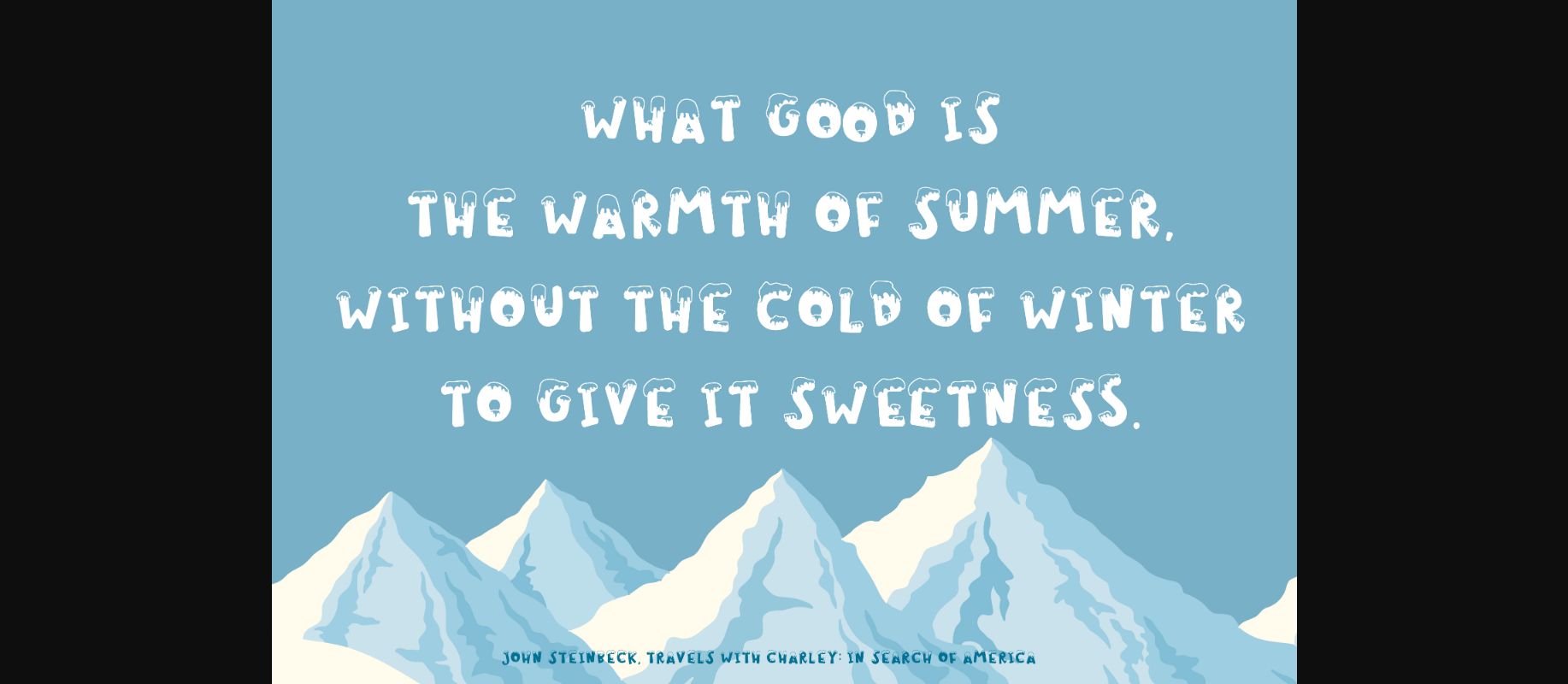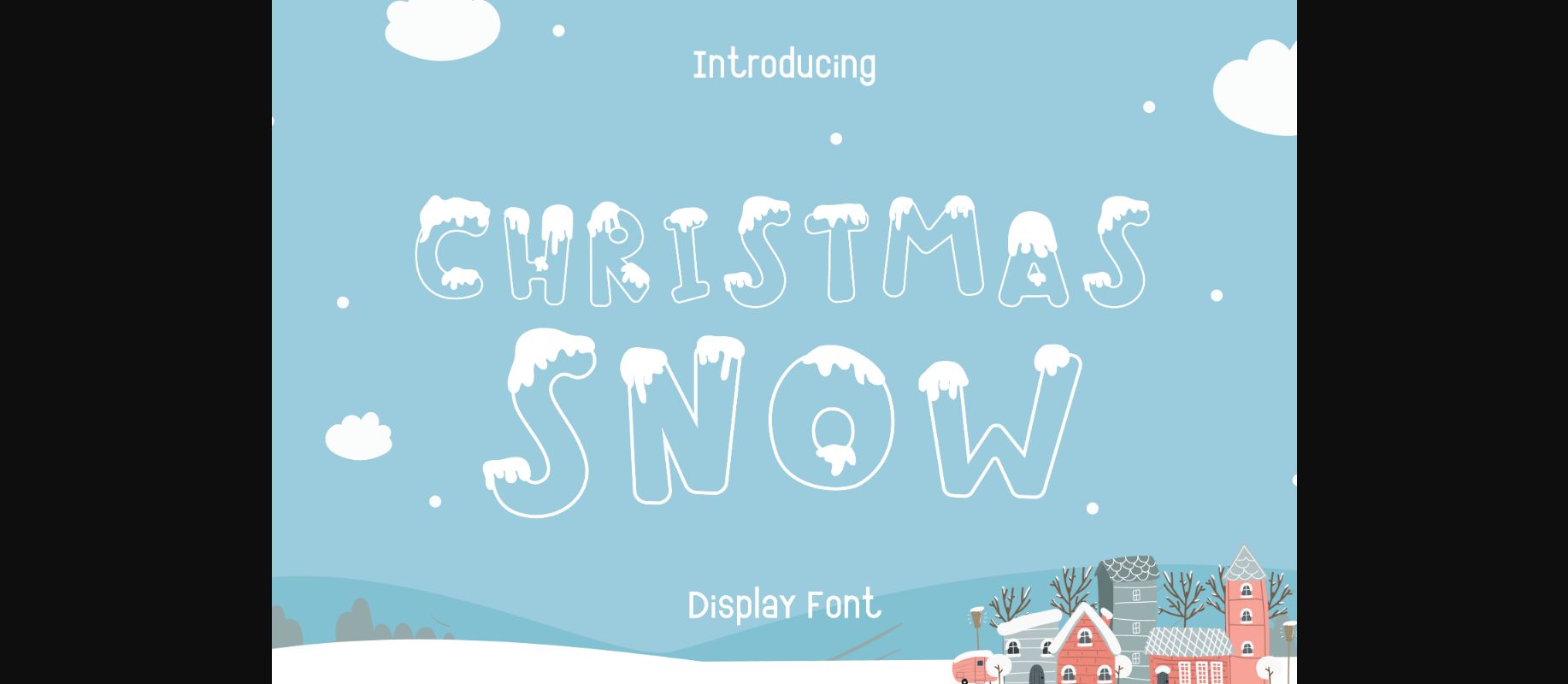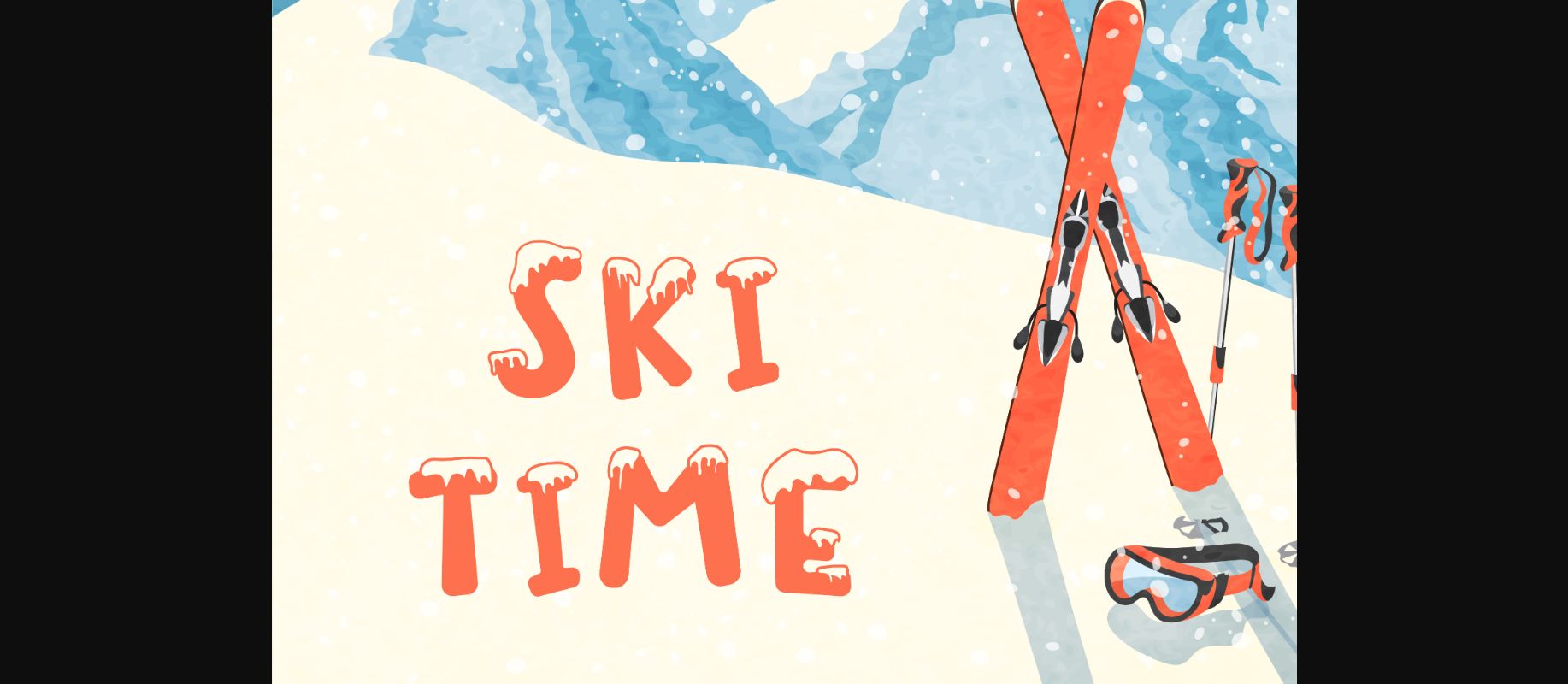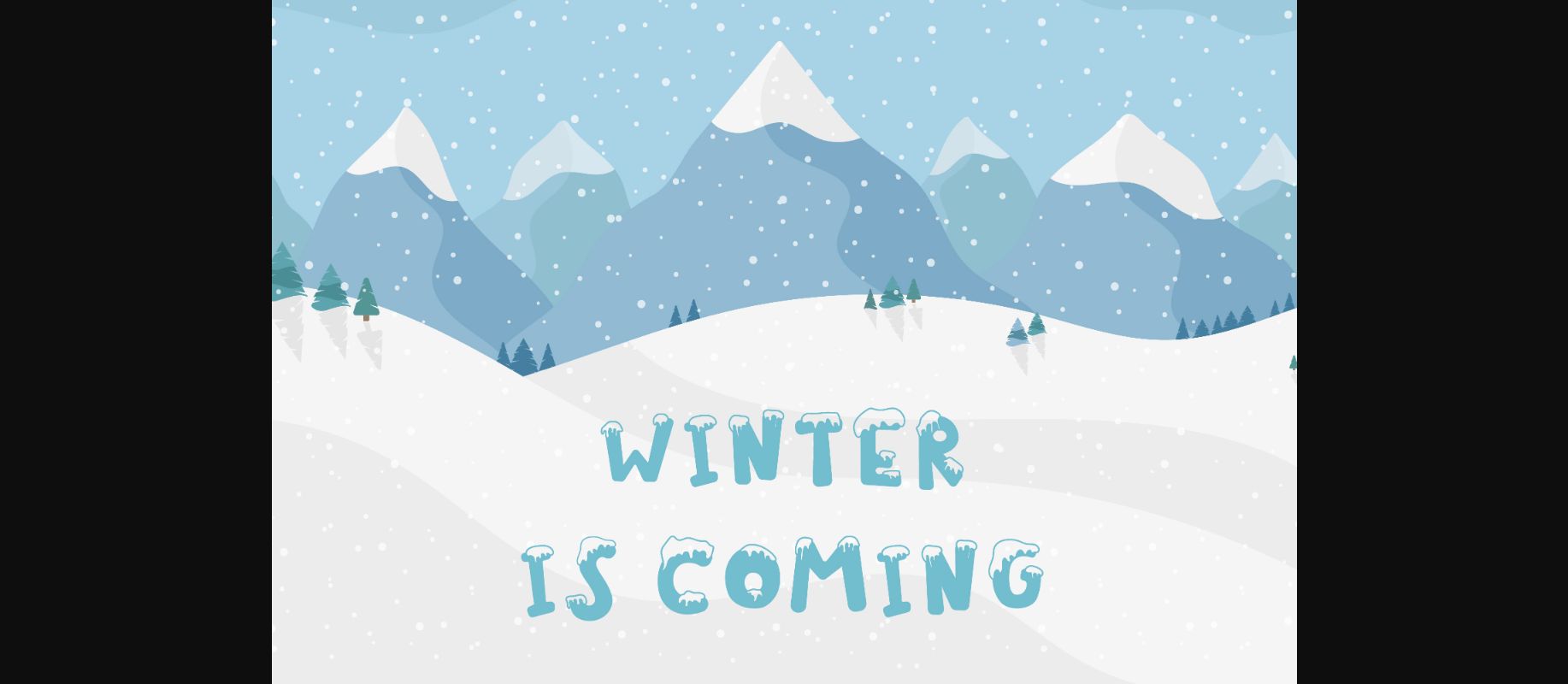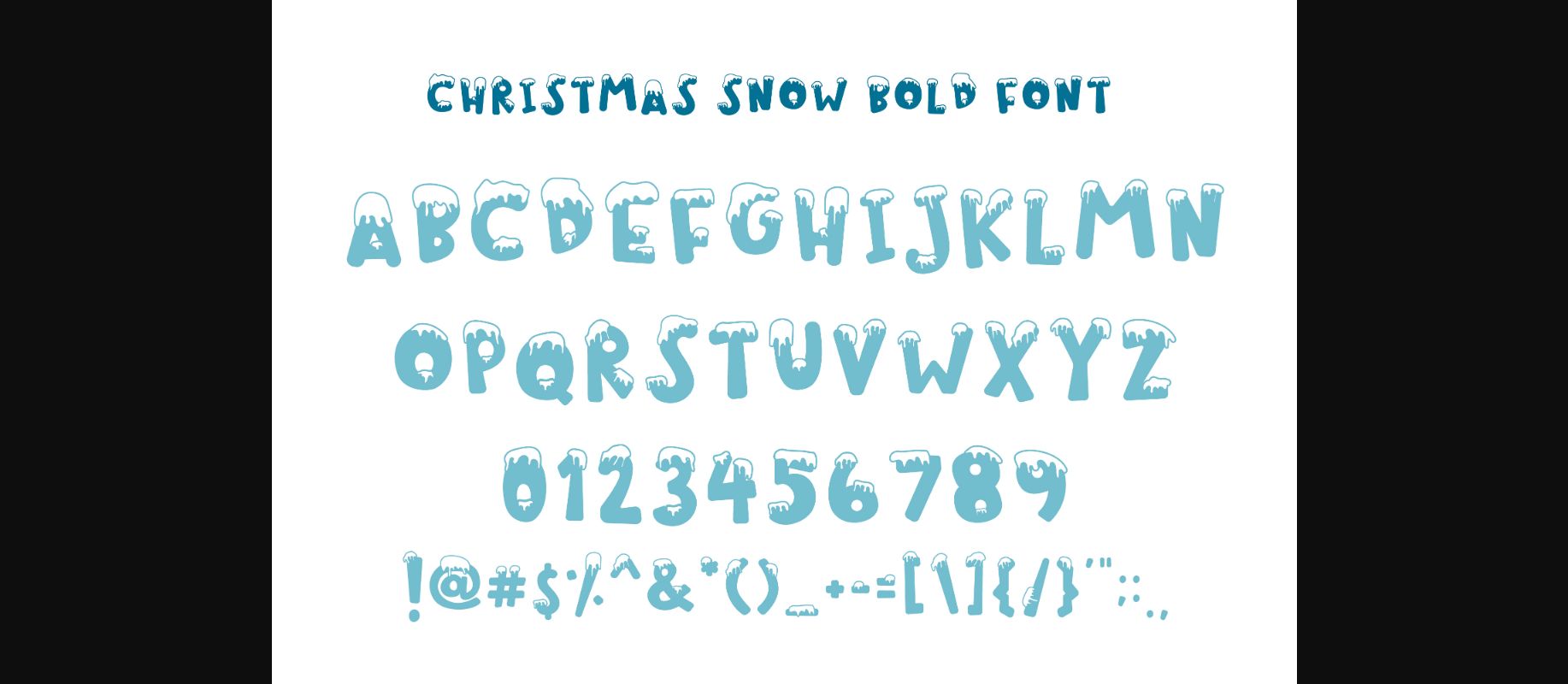
Christmas Snow Font
About Christmas Snow Font
Christmas Snow is a bold and playful decorative font with a winter theme. It will add an incredibly joyful touch to your designs. Add this beautiful Headline font to each of your creative ideas and notice how it makes them stand out!